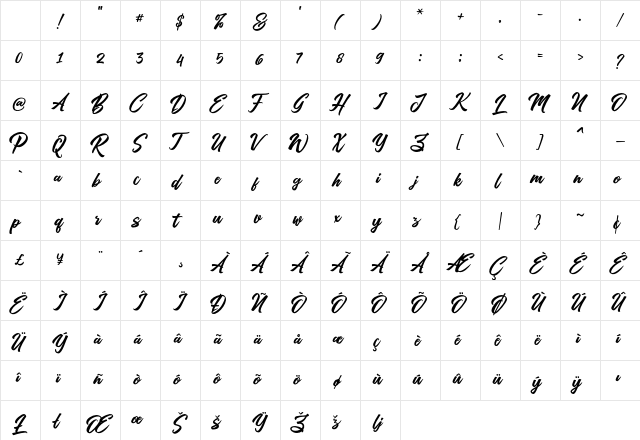
Artukge Script flows with the natural rhythm of handwritten lettering, making it ideal for designs that call for warmth and personal expression.
Font Pairing: Combine Artukge Script with a simple geometric sans for maximum contrast - the tension between flowing curves and clean structure is a classic typographic pairing.
Pro Tip: Use Artukge Script for short runs of text - names, titles, or taglines. Extended body copy in script faces tires the eye quickly.